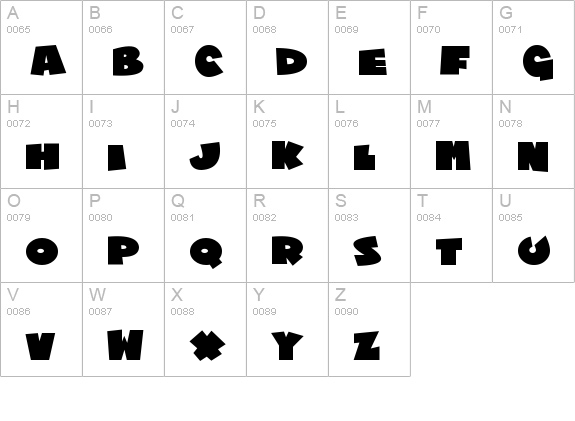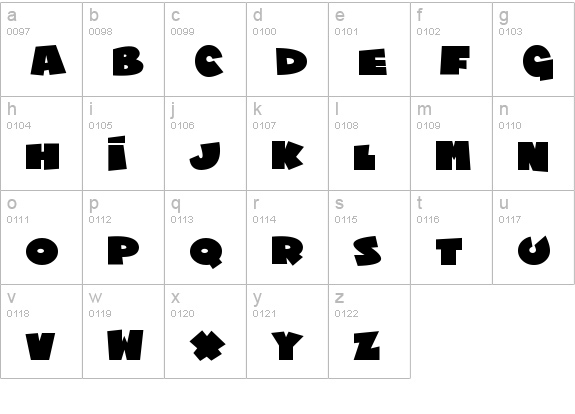
Chublings Font Details
Chublings is a free for personal use font in the Fancy > Comic category, designed by Darrell Flood. It has been downloaded 258 times and is available for Windows, Mac and Linux.
Chublings font is a charming and playful typeface that exudes a sense of whimsy and fun. With its rounded edges and friendly appearance, this font is perfect for adding a touch of personality to your designs. Whether you're working on a children's book, a greeting card, or a poster, Chublings font will bring a sense of joy and warmth to your project.